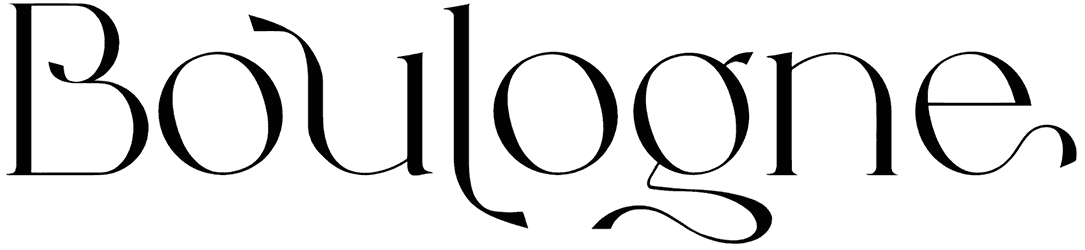
Boulogne Font
We are bringing you another luxury font today! Boulogne font is adorned with a minimal serif style and long, stretched lines on some of its letters. It will give a modern and serious vibe to your texts.
You can use this font for romantic and fantasy books and movie titles, channel banners, personal blogs, and event flyers. The characters are designed in a thin letter style and slightly bolder sides.